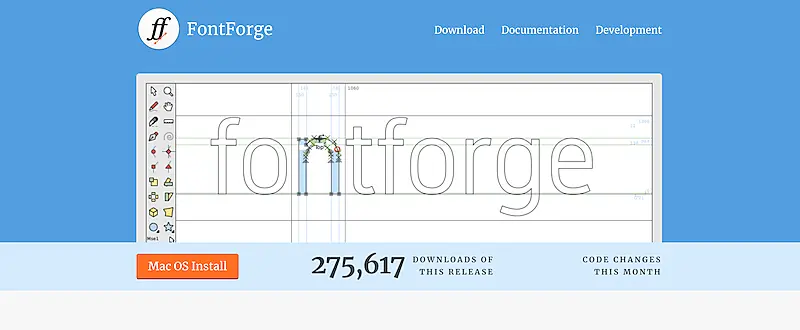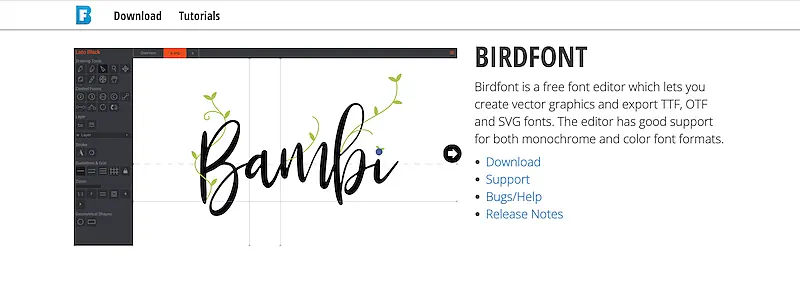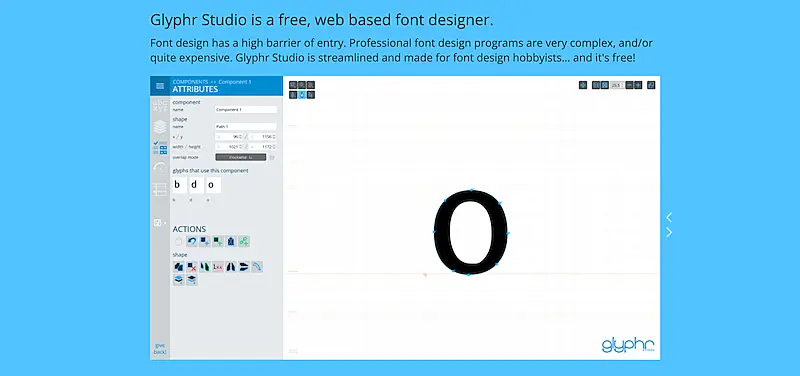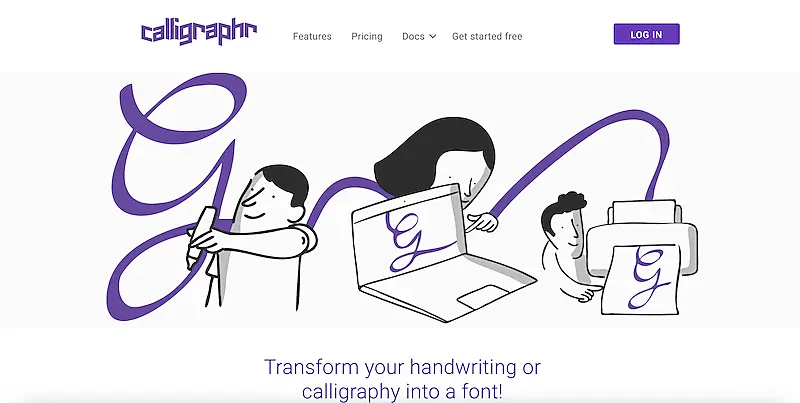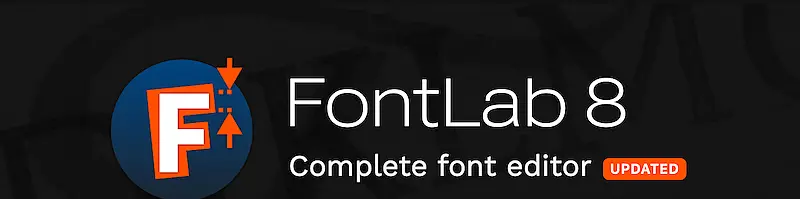
Learning how to make your one font can be easier than you imagine. You will find several font makers to use online, which don't require being a designer expert to enjoy. The result: a personalized font to be used in Logos, websites, and multiple physical and digital pieces.
If you pay close attention to renowned brands, such as Coke and Apple, the font they use is an important part of their brand visual identity. It helps to convey the message they want, and it strengthens their image. You can create a unique font, and make your brand stand out as well.
Why Create a Font
With so many fonts available on the internet to download for free, you may wonder why it is worth understanding how to make your own font. And, there are many reasons for that, starting with being able to have a font no one else in the world has.
It's a strategy that helps differentiate your brand from others. Besides, you can design the font as you imagined, detail by detail. It's even possible to create a font from your handwriting. Another advantage is that, after creating your font using font makers, you may use it several times, in every design piece you wish.
Uniqueness and originality are factors people take into consideration when choosing to buy from a brand, details such as a font make the difference. It helps to create a memorable visual identity. It also allows you to explore different types of design, innovate, and have a font that suits your needs specifically.
How to Make Your Own Font
Define What the Font Will Be Used For
When it comes to making your own font, before starting to design it, it's important to define the font's main use. For example, if you are going to use it to create a logo or to write articles on a website.
The font's use influences directly on the design choices. If the font is made to be applied to a logo, it may have more details, and be cursive. While, if it's for writing long texts, you need to consider legibility.
It's also necessary to specify if the font will be mostly used for digital pieces or printed ones, the font size you wish it to work best, and the message you want the font to convey. To help you come up with ideas, separate fonts that are an inspiration.
Select the Type of Font You Wish to Create
Some characteristics put fonts in different categories, knowing those aspects helps understand the type of font you wish to make.
- Serif Fonts: these types of fonts are characterized by the tapers or feet on the letters that are called serifs. Times New Roman is one of the most popular serif fonts in the world, highly used in formal publications.
- Sans Serif Fonts: they don't have serifs, as the name suggests. One example is the Arial font, which is used worldwide in digital and print publications.
- Brush/Caligraphy Fonts: these fonts imitate human handwriting. It seems that they were written with a pen or a paintbrush. Many of them are cursive, an example is Lucida Handwriting font.
- Black Letter Fonts: they are ornated, usually with a medieval or gothic style. The Old English font is an example.
Choose a Font Creation Software
After defining the use and type of font you wish to create, it's time to choose the software you will use to design it. Fortunately, you can find many platforms online that enable you to create a font with just a few steps, without even needing to install any app on your computer. They even allow you to transform your handwriting into a font.
Start Designing
Once you choose the font creation software, you need to put your ideas to work. You may start designing the font with a sketch you made on paper or uploading a font you will use as a base to create yours. You will need to define some aspects of the font, so it's helpful to know the terminology used:
- Glyph: it refers to each character in a font.
- Baseline: it's the invisible line where every font character sits.
- Ascender line: the invisible line where ascenders begin.
- Ascender height: the maximum height the ascenders on lowercase letters reach.
- Descender depth: the maximum depth the lowercase letters reach below the baseline.
- Stem: main vertical stroke of a letter.
- Bowl: closed rounded part of letters, like "o" and "d".
Apply Your Font
After you finish designing your font, make tests with it to know if the font will work for the purpose you have in mind. If you are going to use it on a logo or make it the official font to write titles and other things related to your brand, create a manual on how to use it. This way, you ensure your brand's visual identity will be harmonic, coherent, and consistent.
4 Main Characteristics a Good Font Should Have
Knowing how to make your font is the beginning, you also need to make the font you create meet some fundamental criteria:
1. Legibility
A good font must be legible, which means people should be able to recognize each letter without any problem. The letterforms should be clear and distinct.
How to make your own font FontLab
Enjoy Your Font
Now that you have learned how to make your own font, test your ideas, innovate with unique design, and create a font that matches your brand identity. Try the font makers to discover the one you like most, and don't forget to make sure your font is legible and easy to read. You will see that a personalized font will add a special touch to your brand.